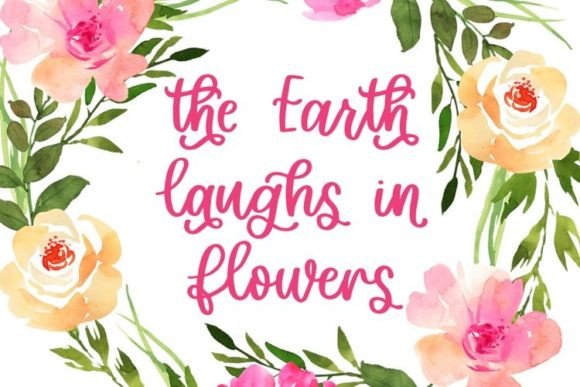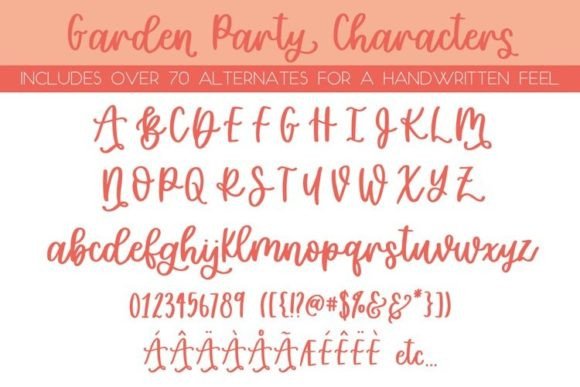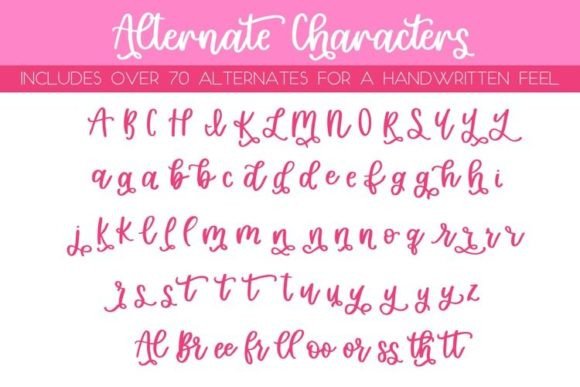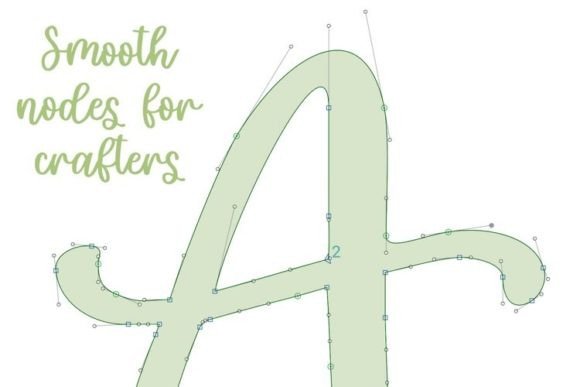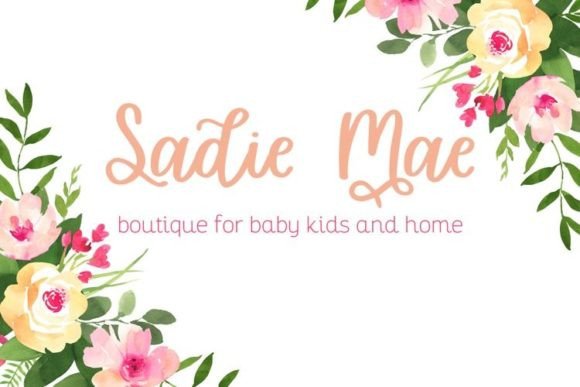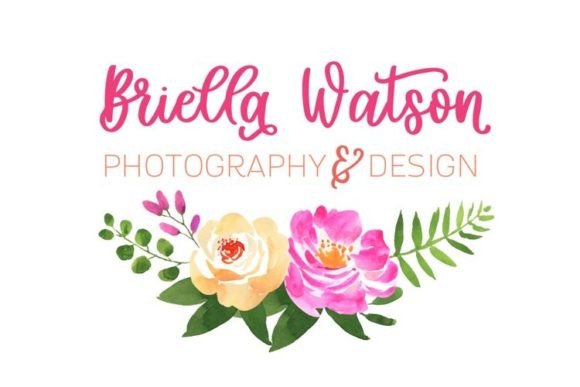
Garden Party Font: Elevate Your Designs with Elegance and Sophistication
Are you searching for a font that exudes luxury, sophistication, and a touch of whimsy? Look no further than the Garden Party font, a stunning handwritten typeface that is sure to become your new favorite. With its perfect blend of classic calligraphic influences and modern flair, this exquisite font is ideal for designers and crafters looking to add a touch of elegance to their projects.
The Charm of Garden Party Font
Garden Party font is a masterfully designed typeface that boasts a unique and captivating charm. Its handwritten style is reminiscent of traditional calligraphy, yet it feels fresh and contemporary, making it perfect for a wide range of design applications. Whether you’re working on a wedding invitation, a branding project, or a craft tutorial, this font is sure to impress.
One of the standout features of Garden Party font is its PUA (Private Use Area) encoding, which allows you to access all the glyphs and ligatures with ease. This means you can create beautiful, intricate designs without the hassle of complicated font management. With Garden Party, you can focus on the creative process, not the technicalities.
Why Designers and Crafters Love Garden Party Font
So, what makes Garden Party font so special? Here are just a few reasons why designers and crafters are falling in love with this exquisite typeface:
- Classy Calligraphic Influences: Garden Party font boasts a sophisticated, elegant style that is perfect for high-end designs.
- Contemporary and Fresh: Despite its classic influences, this font feels modern and fresh, making it ideal for a wide range of design applications.
- Easy to Use: With PUA encoding, accessing glyphs and ligatures is a breeze, saving you time and frustration.
- Versatile: Garden Party font is perfect for a variety of design projects, from wedding invitations and branding to craft tutorials and more.
Tips for Using Garden Party Font in Your Designs
Now that you’re eager to get started with Garden Party font, here are a few tips to help you make the most of this exquisite typeface:
- Pair it with Neutrals: Garden Party font pairs beautifully with neutral colors like white, cream, and gray. Try pairing it with a bold color to create a stunning contrast.
- Experiment with Ligatures: With PUA encoding, you can easily access ligatures and create beautiful, intricate designs. Experiment with different combinations to find the perfect look for your project.
- Add a Personal Touch: Garden Party font is perfect for adding a personal touch to your designs. Try adding a hand-drawn element or a custom illustration to make your project truly unique.
In conclusion, Garden Party font is a true gem in the world of typography. With its exquisite handwritten style, classy calligraphic influences, and modern flair, this font is sure to become a favorite among designers and crafters. Whether you’re working on a high-end design project or a craft tutorial, Garden Party font is the perfect choice for adding a touch of elegance and sophistication. So why wait? Fall in love with Garden Party font and bring your projects to the highest levels!
- Exquisite handwritten font
- Classy calligraphic influences
- Contemporary and fresh
- PUA encoded for easy glyph and ligature access
- Perfect for a wide range of design applications